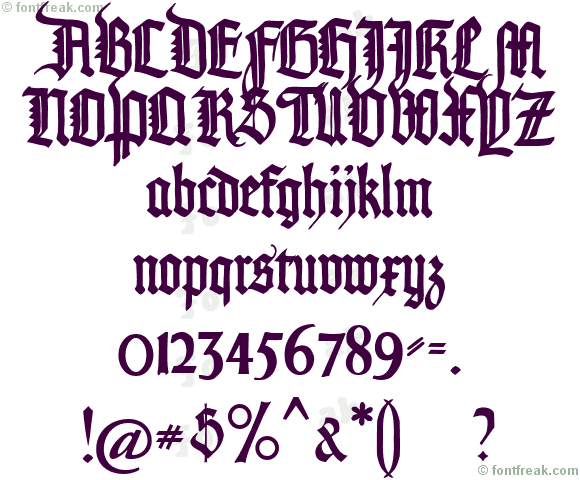
PommernGotisch
PommernGotisch is an exquisite display typeface designed by Peter Wiegel, characterized by its gothic style that blends tradition with modern sensibilities. This serif font features a unique blend of sharp angles and flowing curves, making it an eye-catching choice for a variety of design projects. With its bold stroke weight and high contrast, PommernGotisch commands attention while still maintaining legibility. The spacing between characters is thoughtfully designed to enhance readability, while decorative elements like intricate serifs and pointed arches add a touch of elegance and complexity.
This font is perfect for several specific use cases. It excels in creating striking wedding invitations, where its ornate design can evoke a sense of history and romance. Additionally, PommernGotisch is an excellent choice for movie posters, especially in genres that lean towards fantasy or drama, as it can convey a sense of mystery and grandeur. Restaurant menus featuring traditional or themed cuisine can greatly benefit from the font’s unique character, adding a layer of authenticity to the dining experience. Furthermore, graphic designers creating promotional materials or branding for events will find PommernGotisch invaluable for its distinct visual impact.
What sets PommernGotisch apart is its ability to bridge the gap between classic style and contemporary design, making it a versatile choice that stands out in a crowded market. Whether you’re crafting a high-impact visual or a subtle yet sophisticated layout, this font promises to enhance your work with its distinct personality.